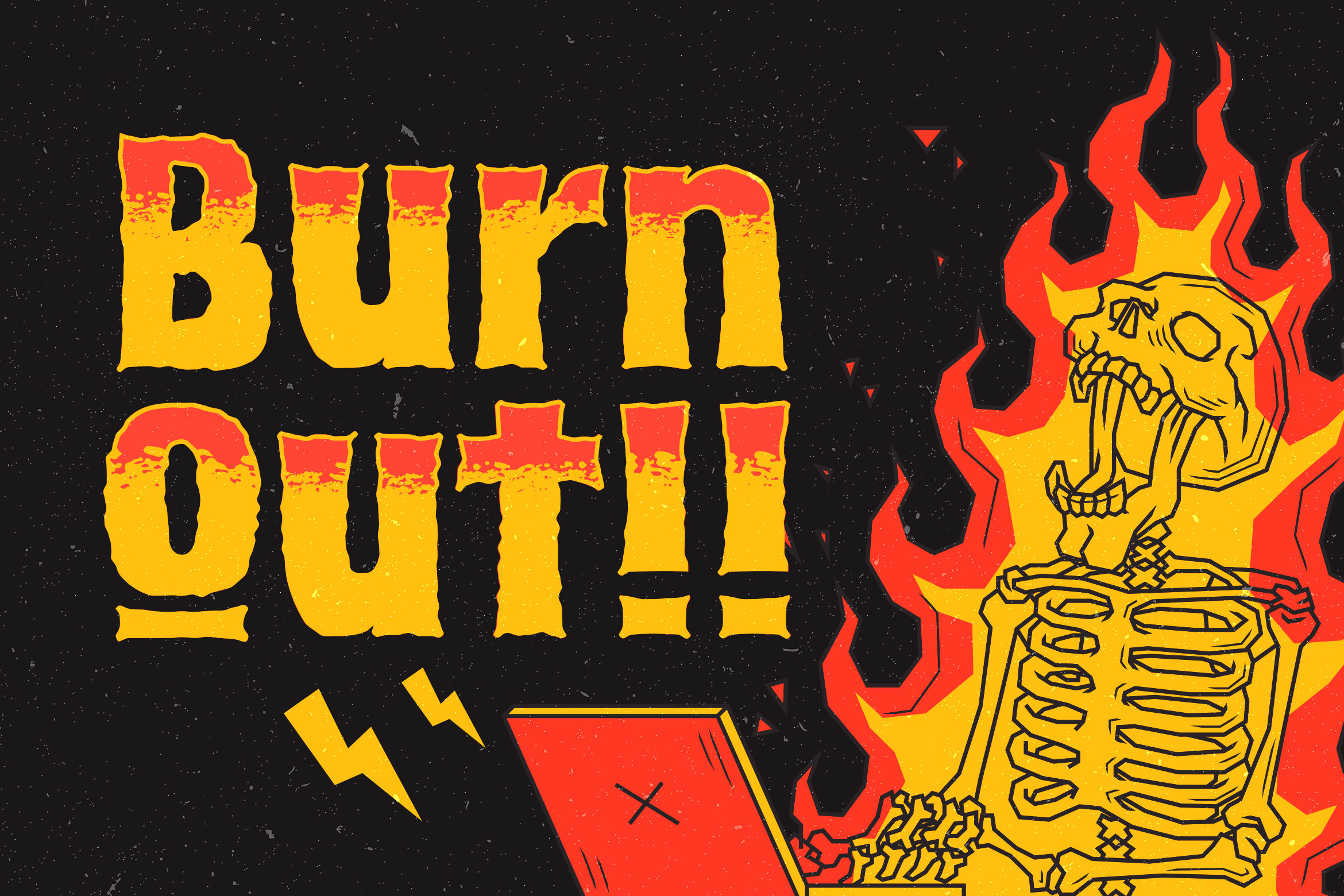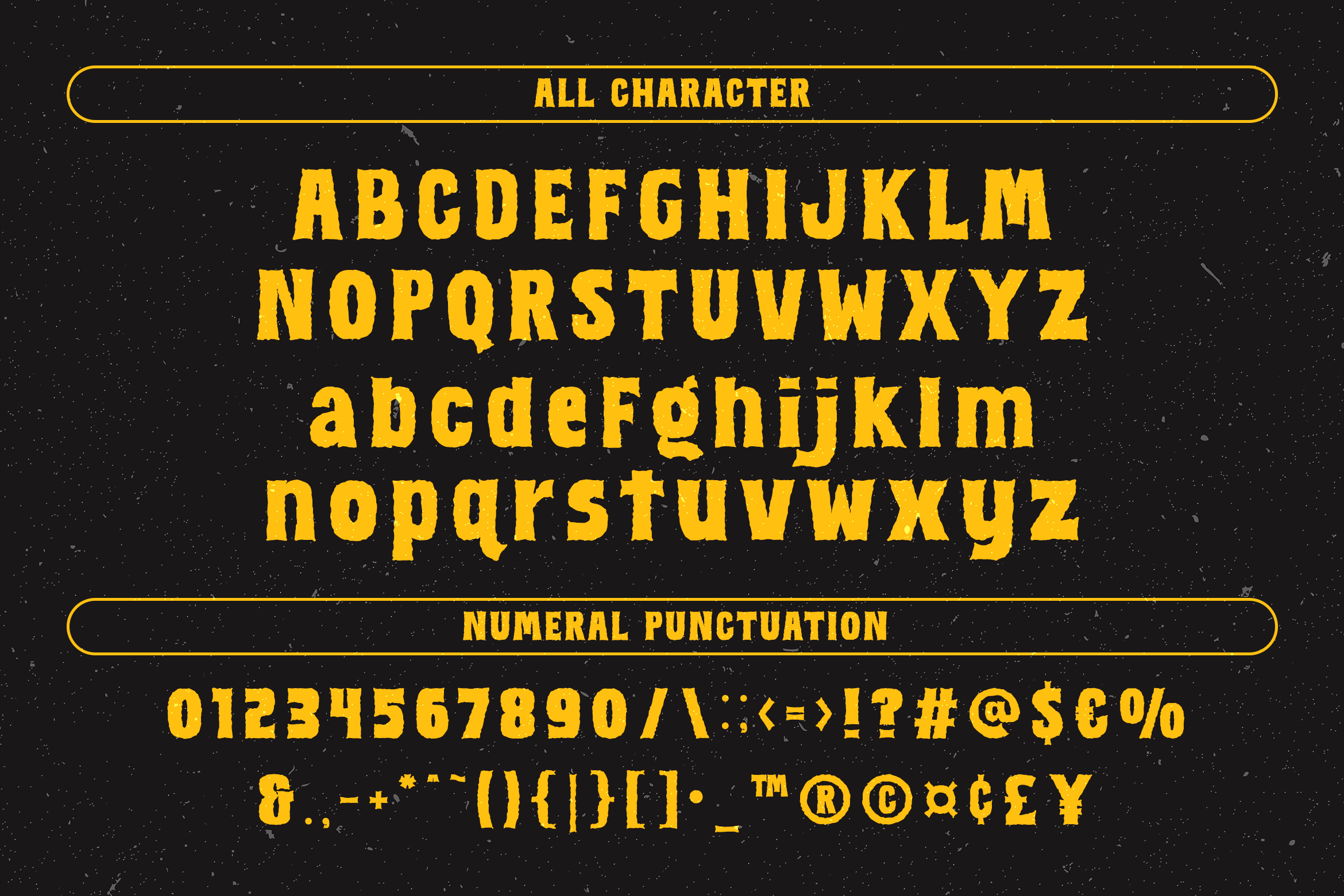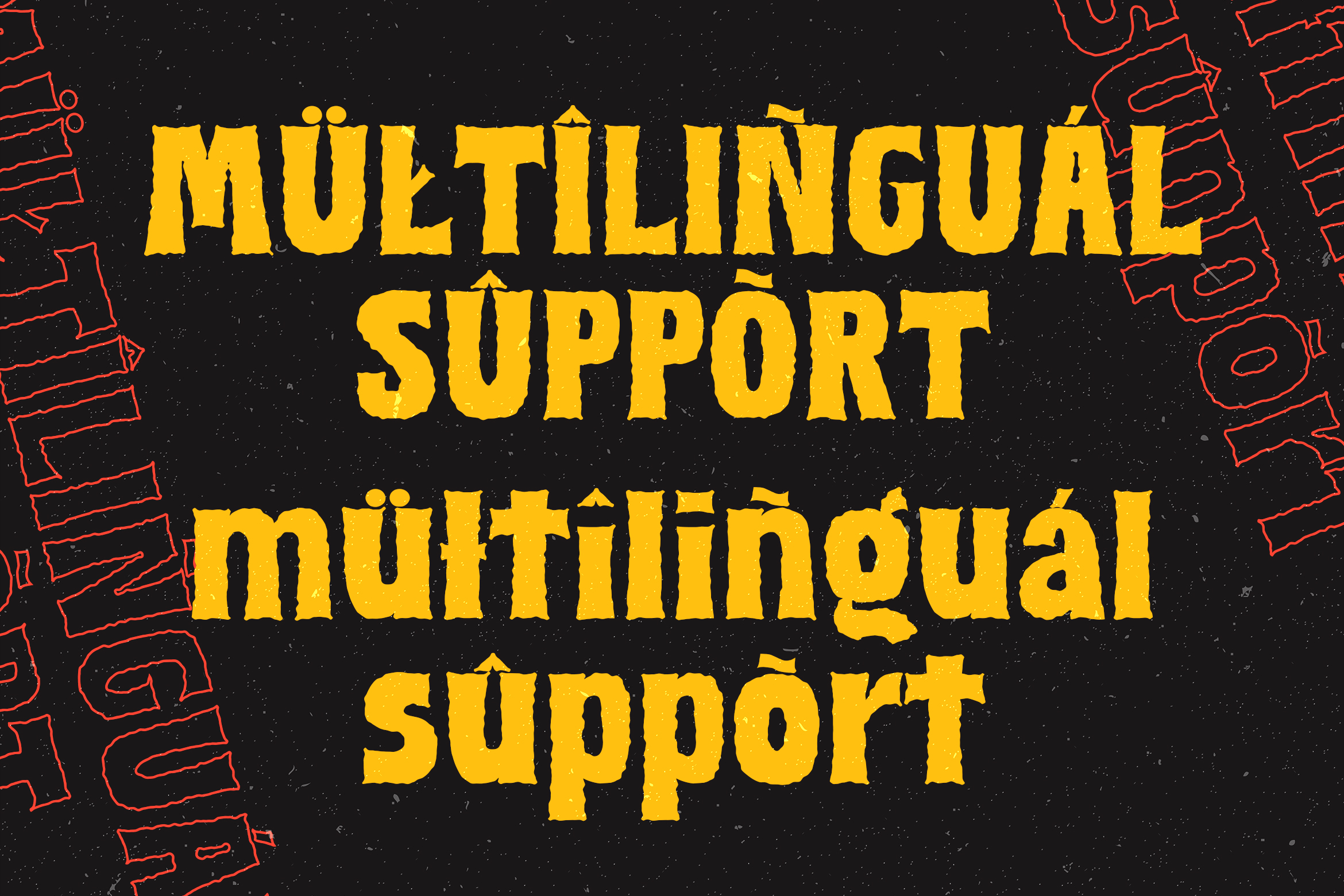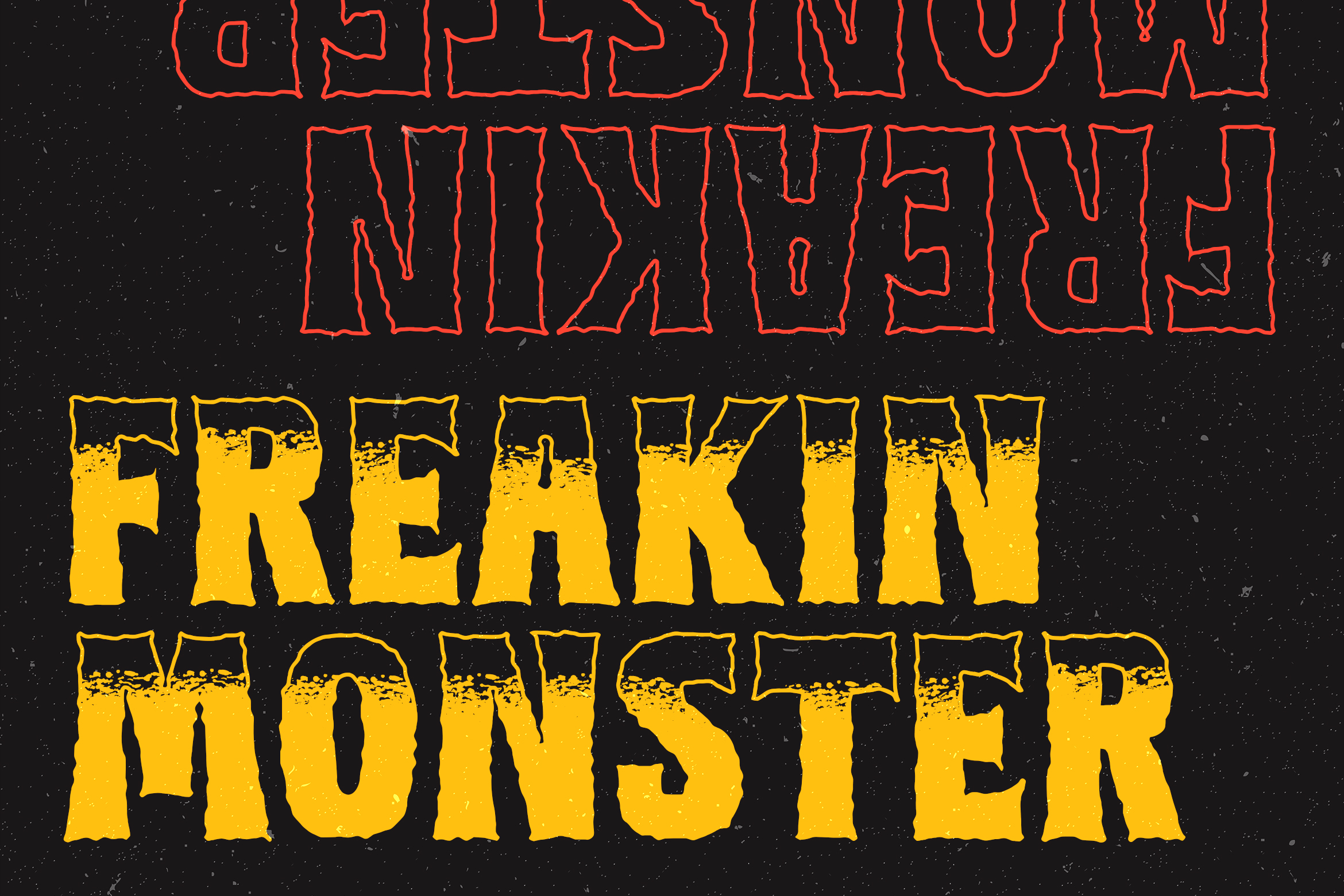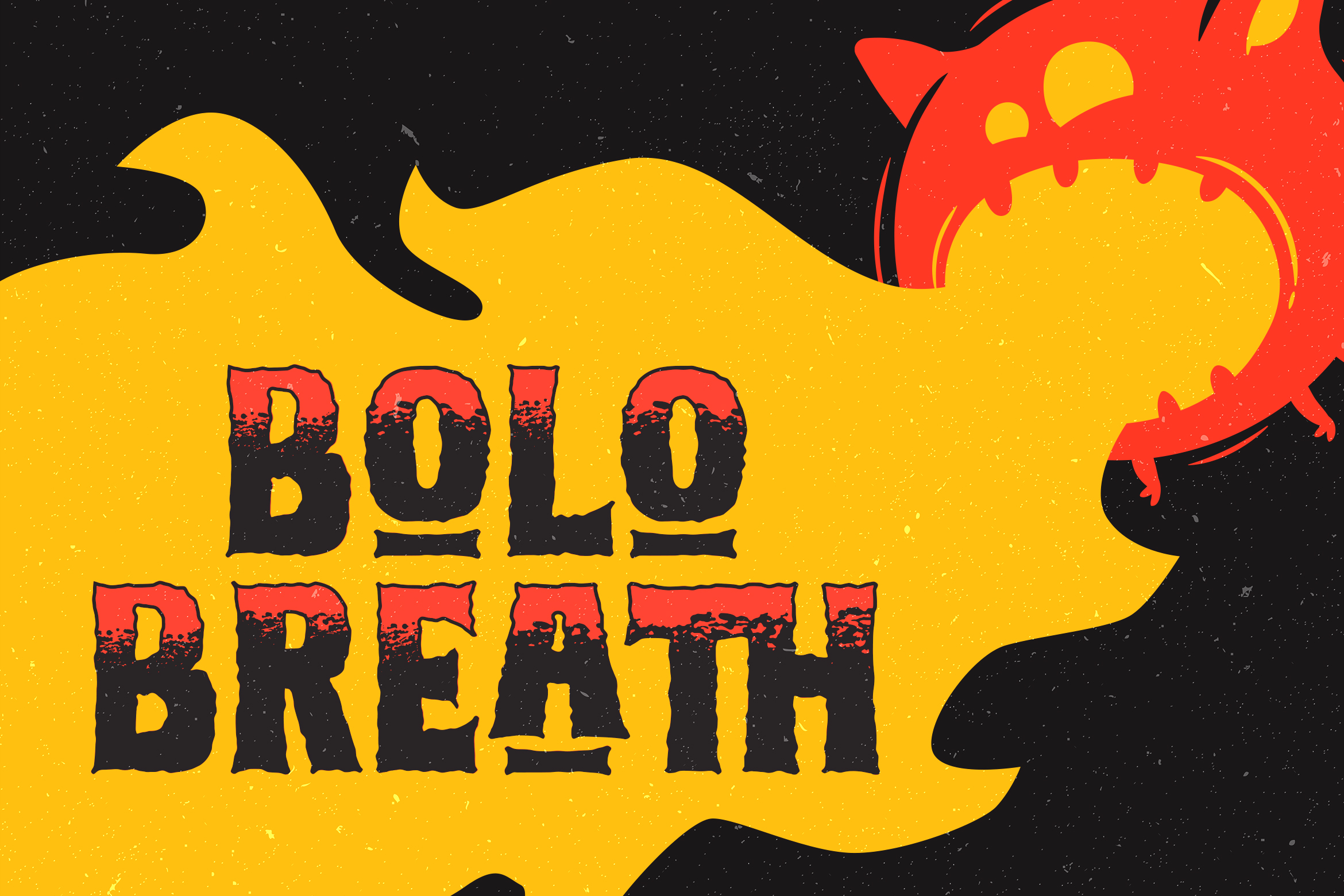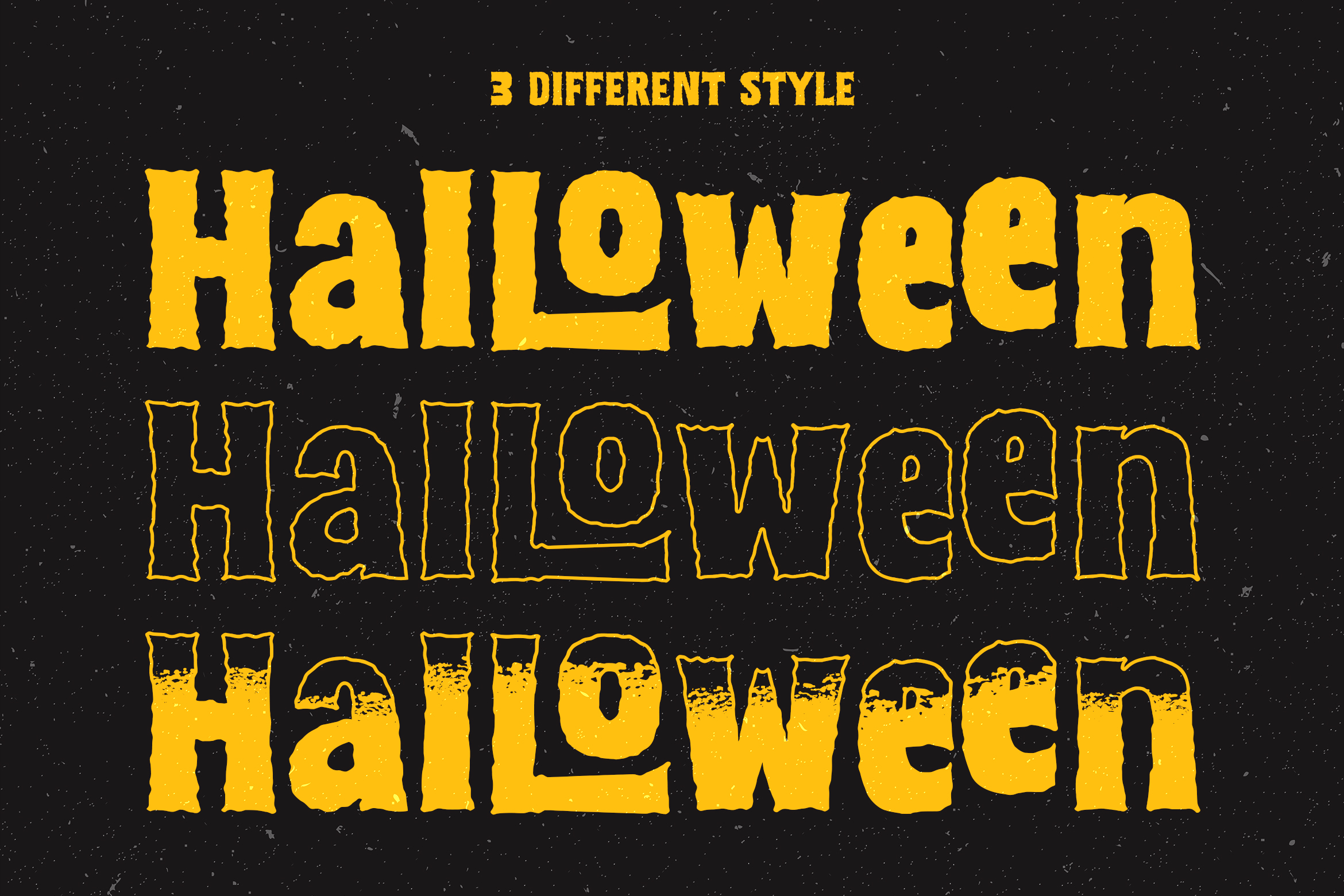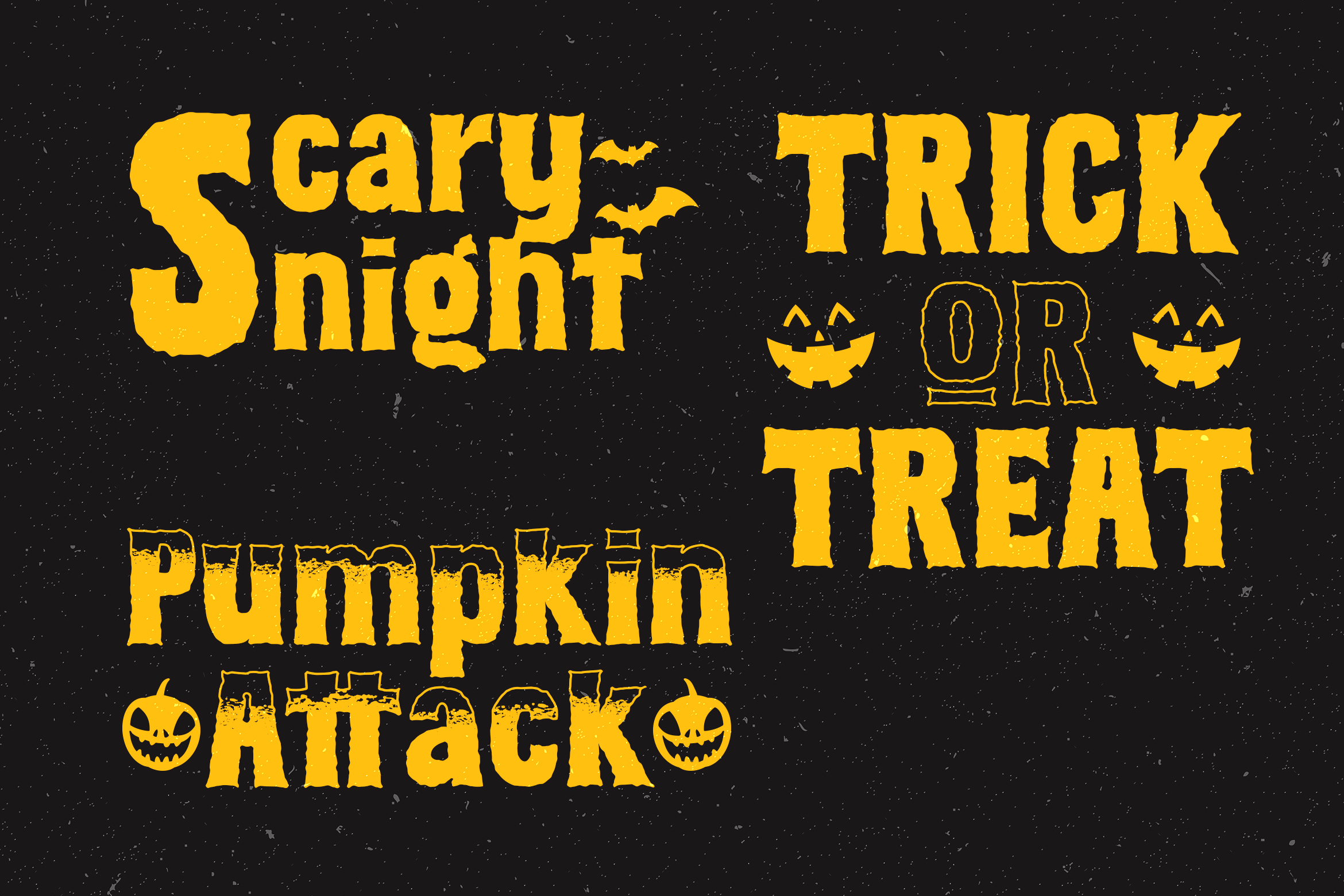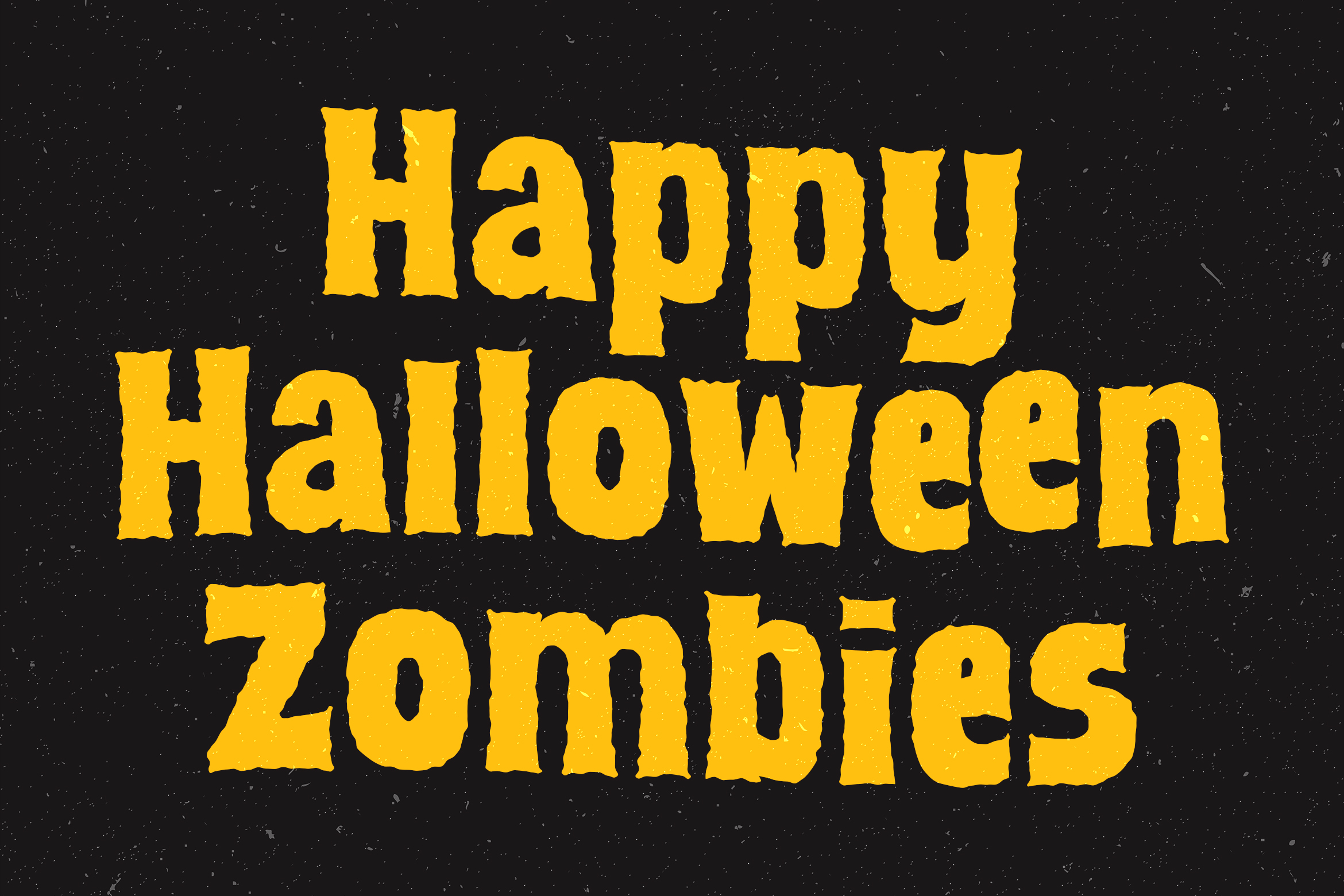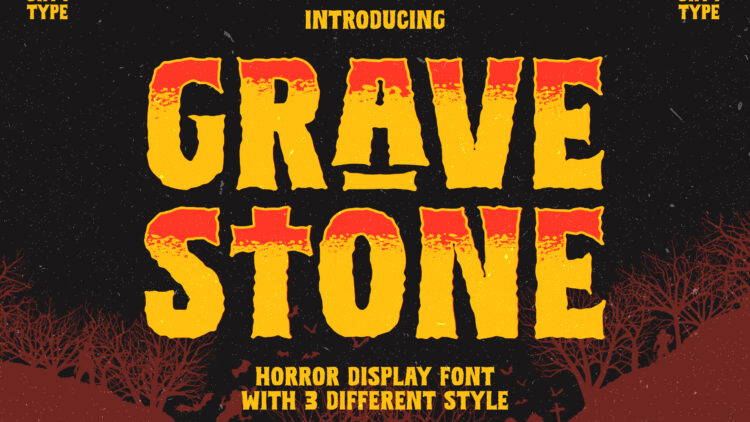
Gravestone – Horror Display Font
The Gravestone font is dedicated to approaching the scary night to come with several features in it and the shape is very grunge, suitable for horror fans. The font I created is meaningful & very versatile, fitting into a variety of designs, elevating them to the highest level. Add this font to your favorite creative ideas and see the results!
Features : Uppercase, Lowercase, Alternates, Ligatures & Multilingual Support
3 different Style : Regular, Outline, Texture